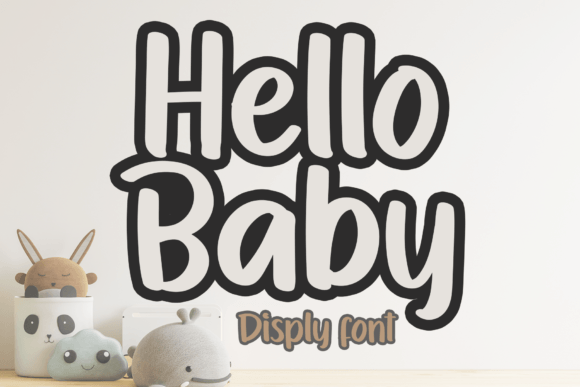
Enter the Hello Baby Font, a modern and fancy display font designed to bring a touch of elegance to your creations. Whether you’re working on a poster, logo, magazine cover, or book banner, this font is the perfect addition to your design arsenal. Its versatility and sophistication make it a valuable tool for designers looking to add a unique touch to their projects. By incorporating the Hello Baby Font into your designs, you’ll be able to create stunning visual effects that capture the attention of your audience.
Hello Baby Font Key Features
- Font Family: Hello Baby Font is a unique, hand-drawn font designed for children’s products and educational materials.
- Character Set: The font includes a wide range of characters, including uppercase and lowercase letters, numbers, and special characters.
- Unique Characteristics: The Hello Baby Font features playful, rounded shapes and whimsical details, making it perfect for creating engaging and child-friendly designs.
Hello Baby Font Review
I recently had the chance to work with the Hello Baby Font, and I must say it’s a unique addition to any design project. The font is designed to evoke a sense of friendliness and approachability, making it perfect for children’s products or nursery decor. ✨ The rounded shapes and smooth lines give the font a gentle, playful feel that’s sure to delight.
One of the standout features of the Hello Baby Font is its versatility. It’s available in a range of weights and styles, from light and delicate to bold and chunky. This makes it easy to adapt the font to different design contexts, from signage to digital displays. ✨ The font also includes a range of ligatures and alternates, which can add an extra layer of personality to your designs.
- ⚠️ The font may not be suitable for formal or professional applications, as its playful nature may not be taken seriously.
- ⚠️ The font’s rounded shapes can make it difficult to read at small sizes or in low-light conditions.
Overall, I’m impressed with the Hello Baby Font’s potential for creativity and playfulness. While it may have some limitations, it’s a great choice for designers looking to add a touch of whimsy to their projects. With its versatility and range of styles, the Hello Baby Font is sure to become a go-to font for many designers.
For best results, use “Hello Baby Font” for titles, headings, and emphasis in your designs. This font is ideal for baby-related projects, such as nursery decor, baby announcements, and children’s book covers.
Remember to pair the font with a clear and easy-to-read font for body text to ensure readability.
What font sizes and styles are included with the Hello Baby Font?
The Hello Baby Font includes a range of font sizes and styles, including regular, bold, italic, and bold italic. The font sizes vary from 8pt to 72pt, providing flexibility for use in a wide range of design applications.